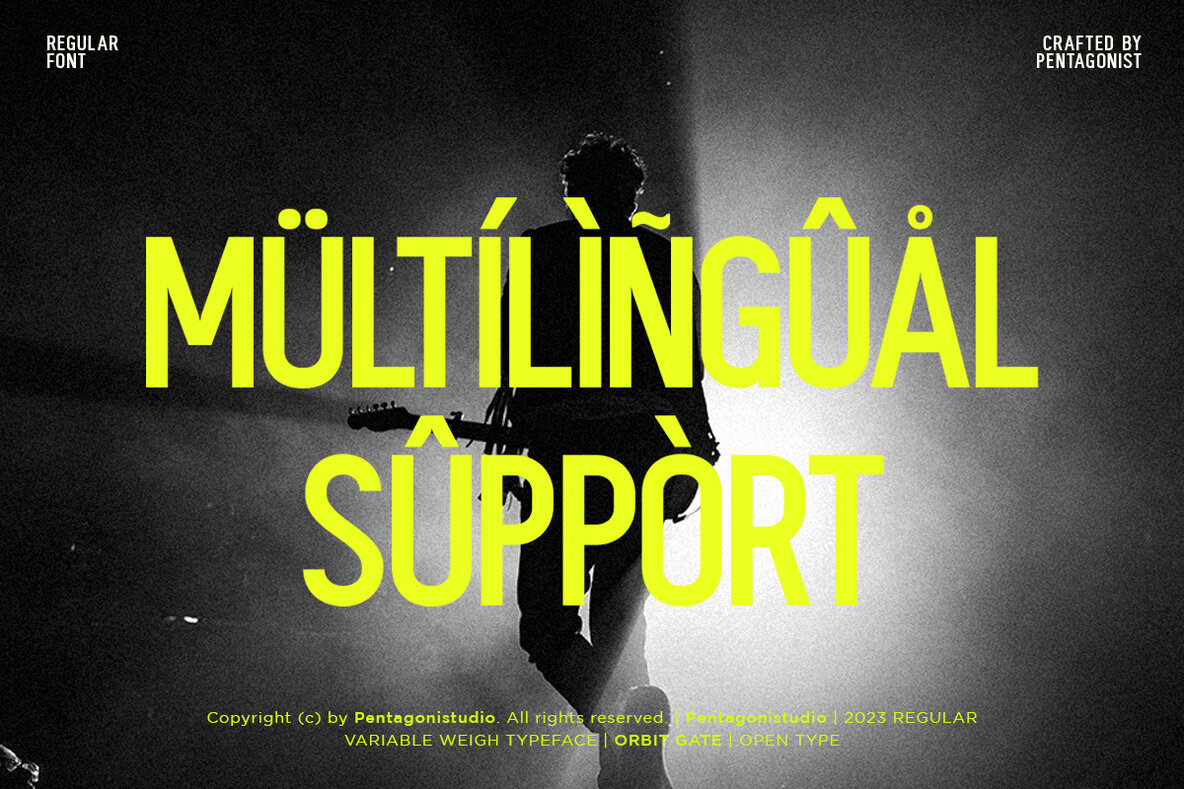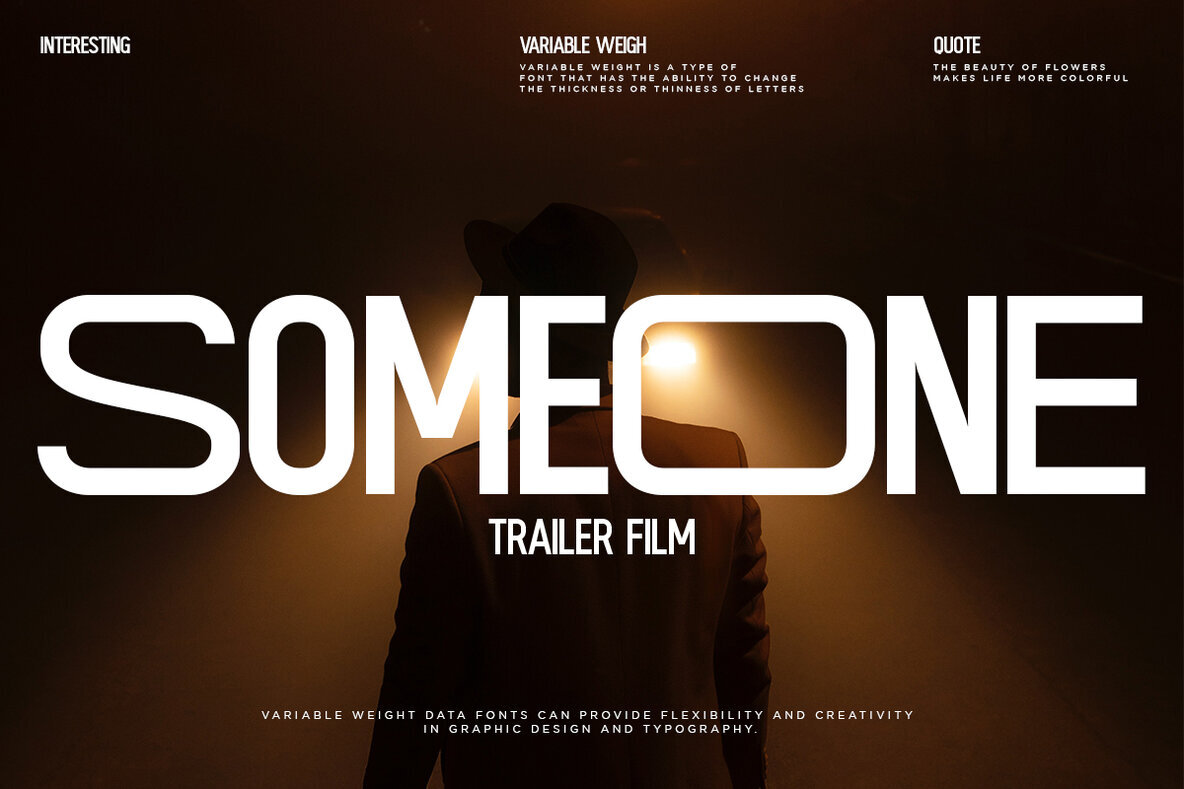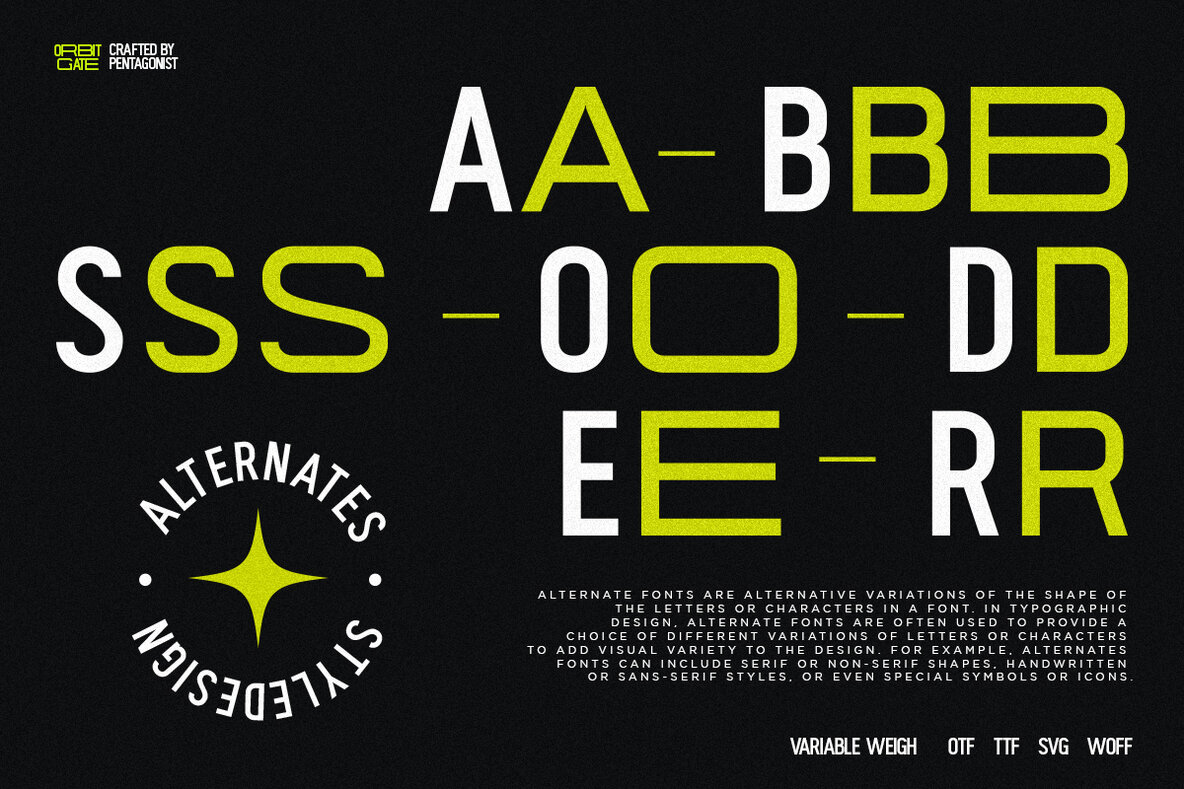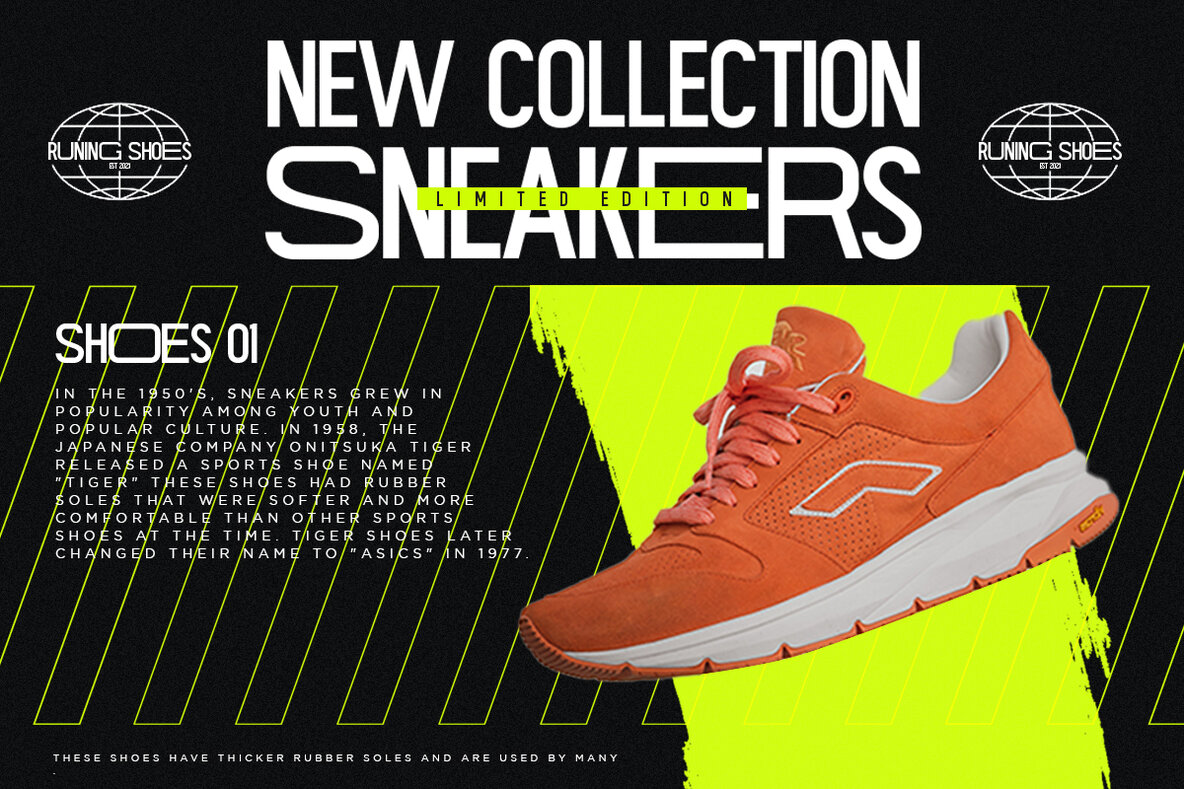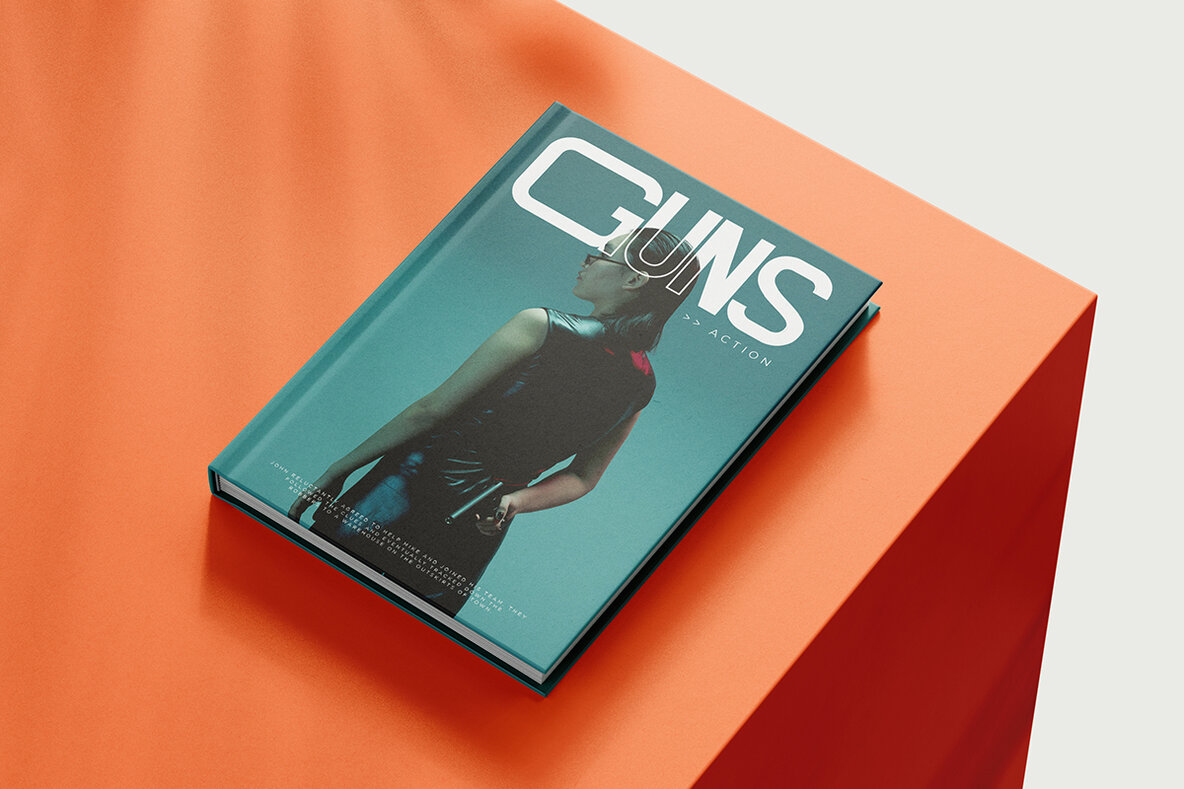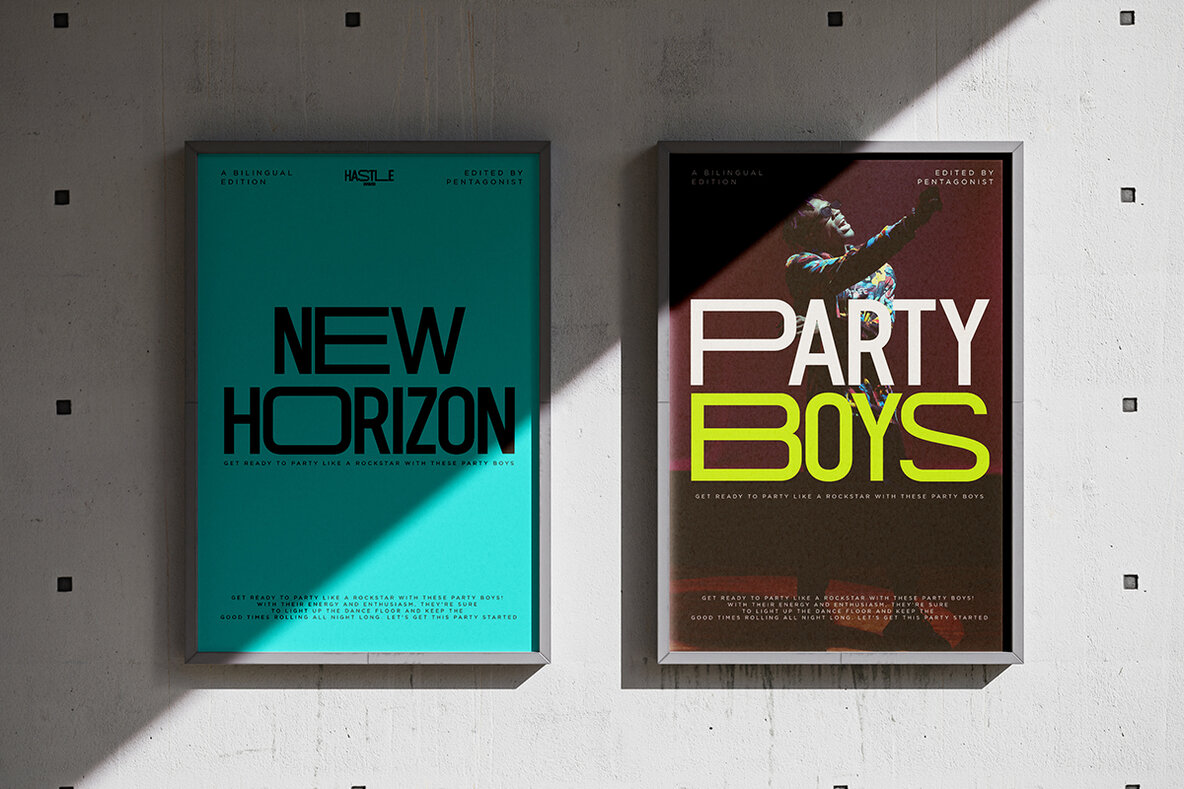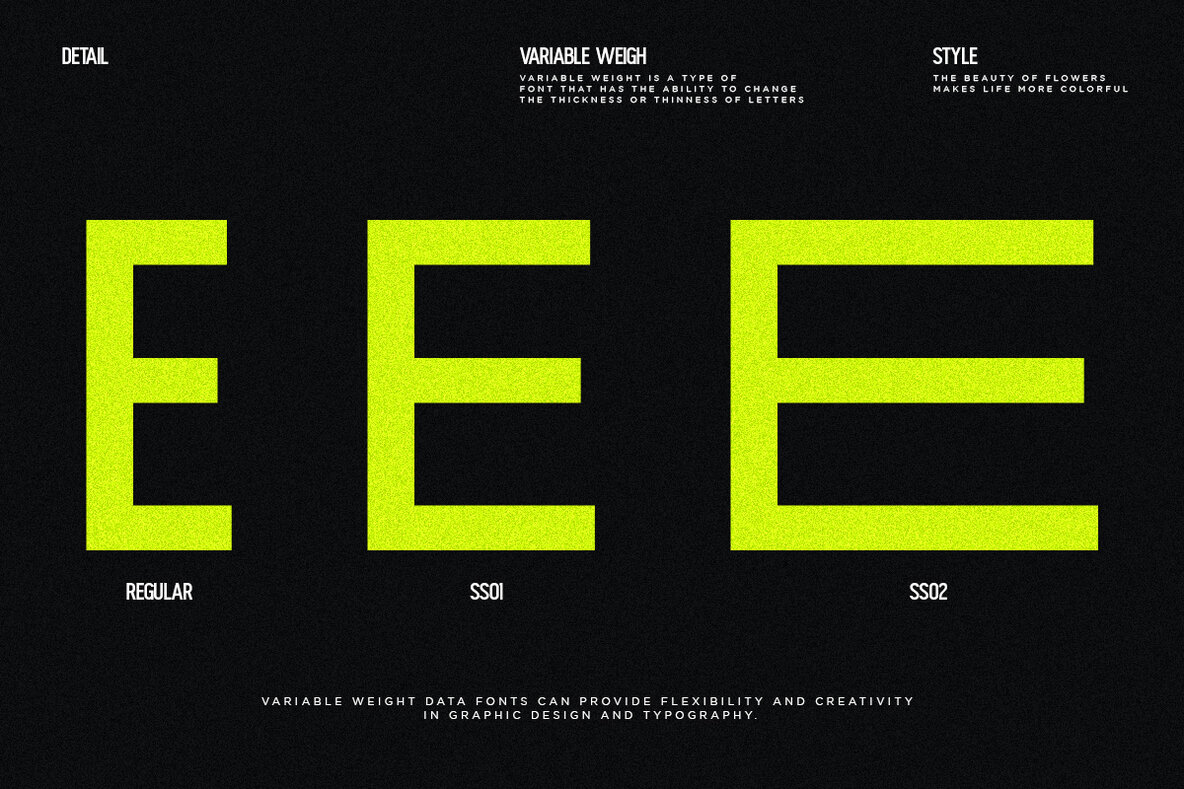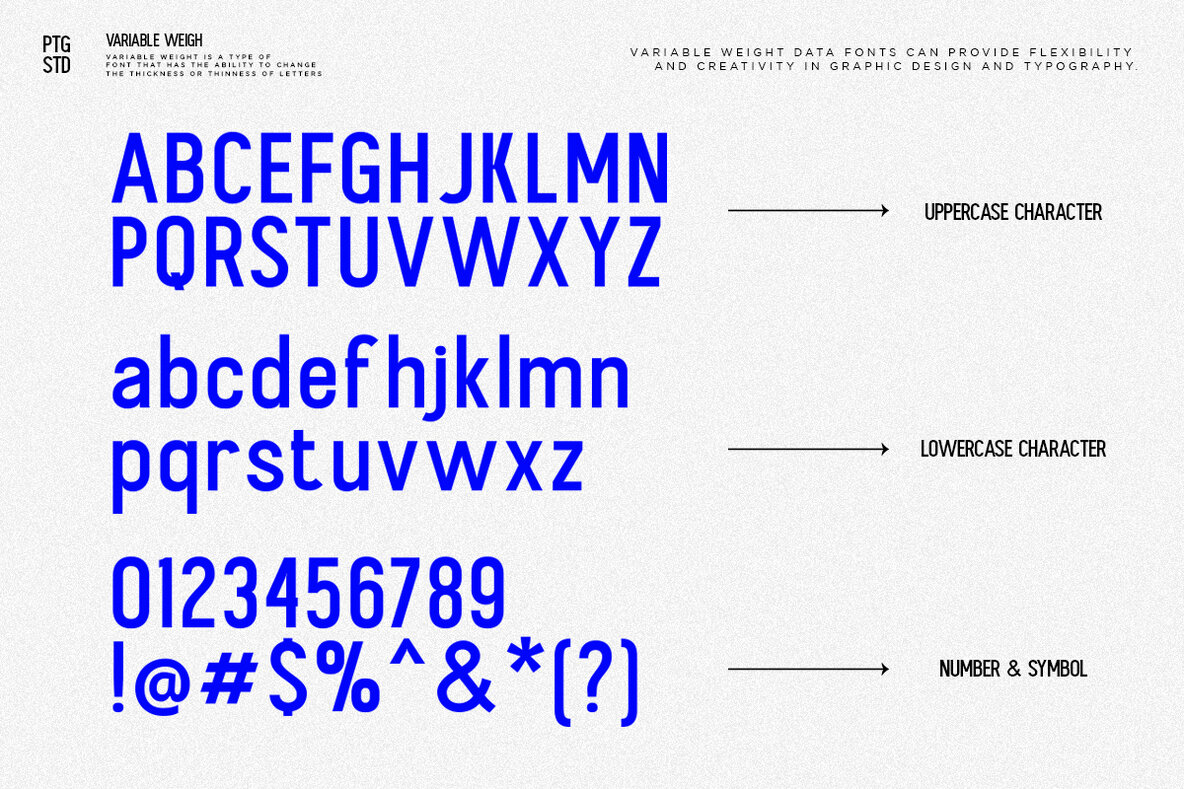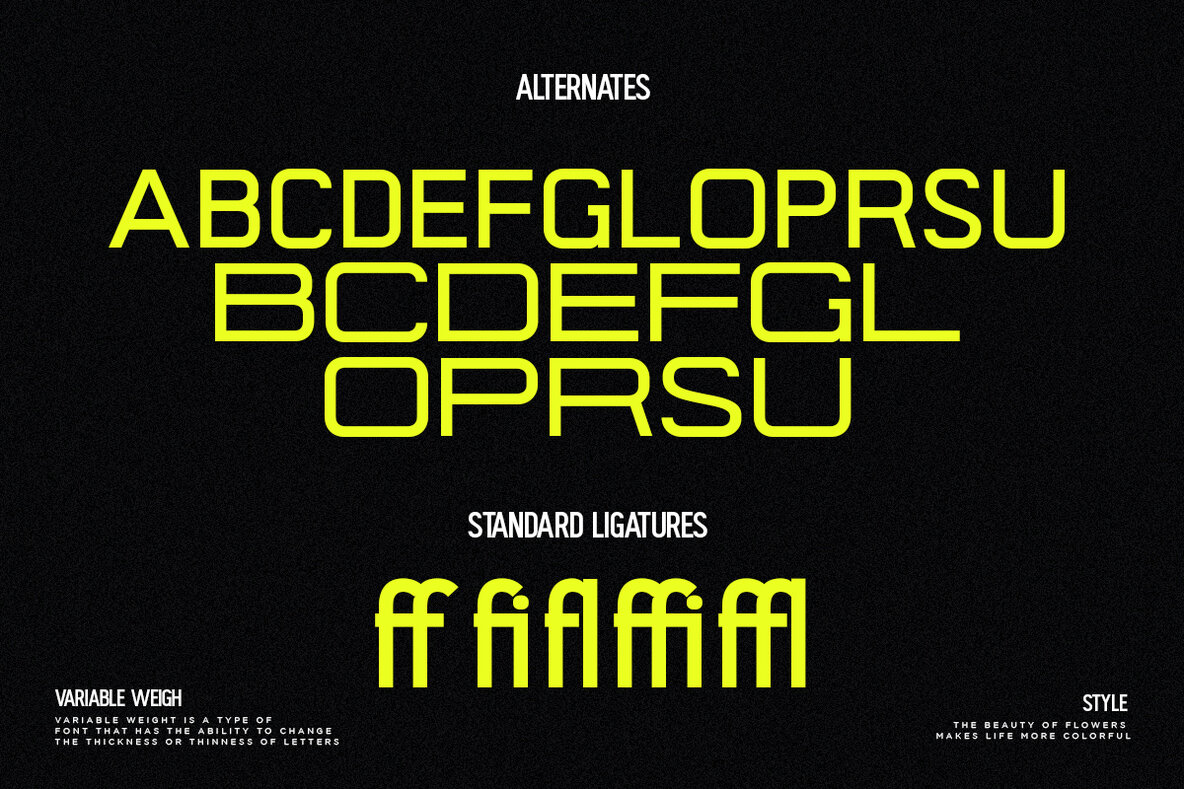
Orbit Gate Font
Orbit Gate Regular
Orbit Gate by Pentagonistudio is a contemporary sans serif typeface featuring a versatile design with both condensed and extended styles. Perfect for modern display uses, it combines boldness with readability. Orbit Gate comes with a desktop license suitable for installation on up to two computers. It’s essential to adhere to the licensing terms: No special software is needed to use Orbit Gate. It can be used in any program or environment that supports standard fonts, making it accessible for a wide range of applications. Follow our shop for updates, including additional glyphs and language support. For specific language inclusion or feature requests, feel free to contact us. Thank you for your interest in Orbit Gate!Orbit Gate: Modern Display Sans Serif Typeface